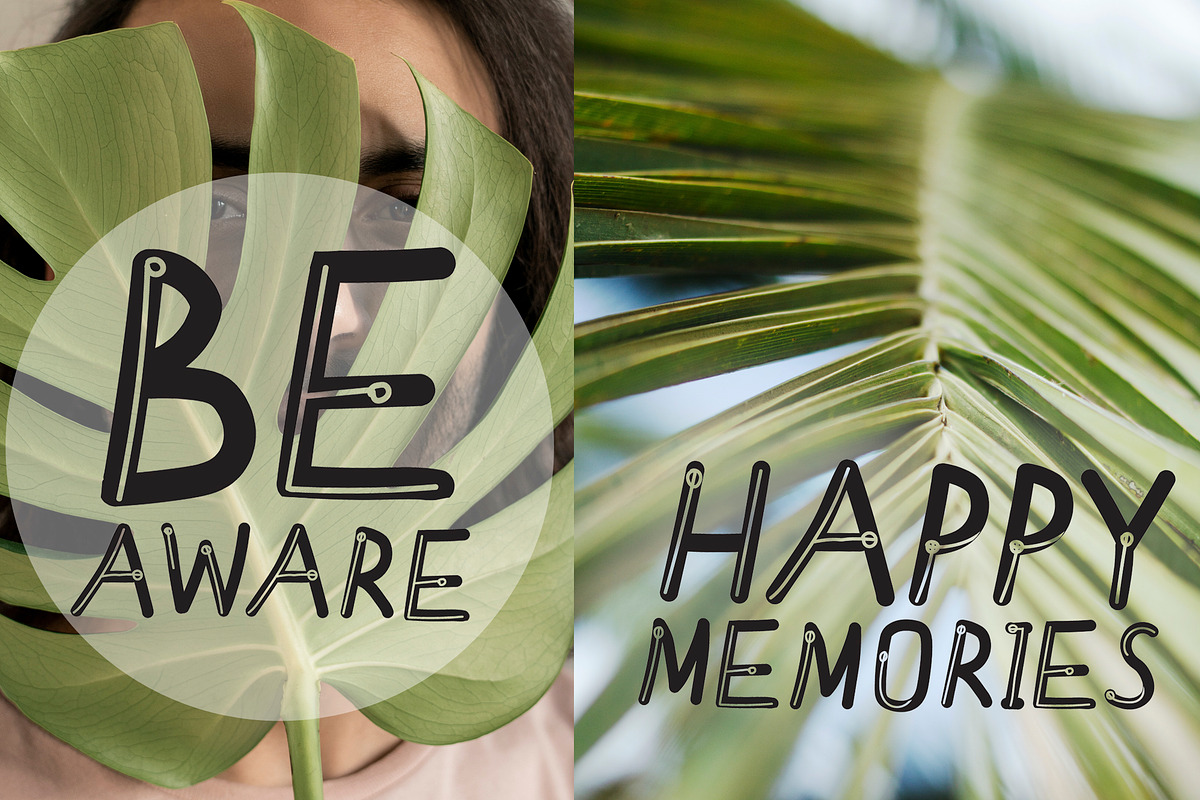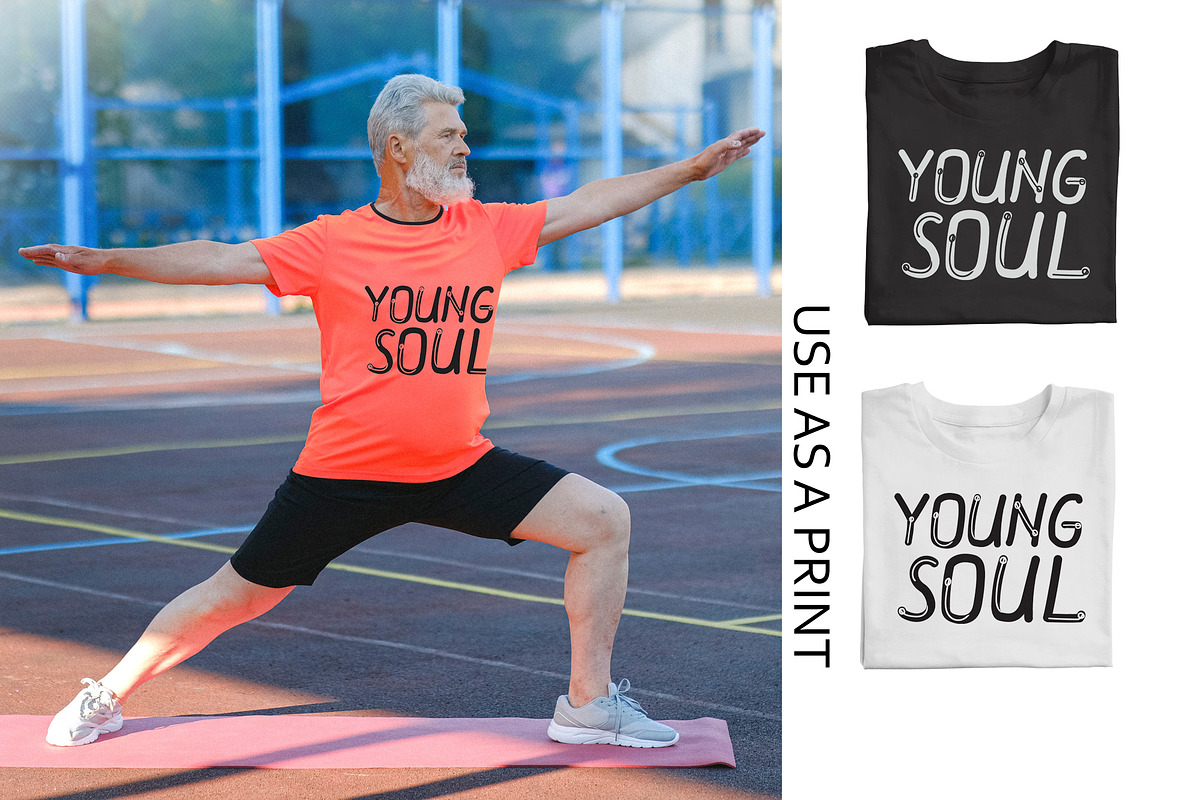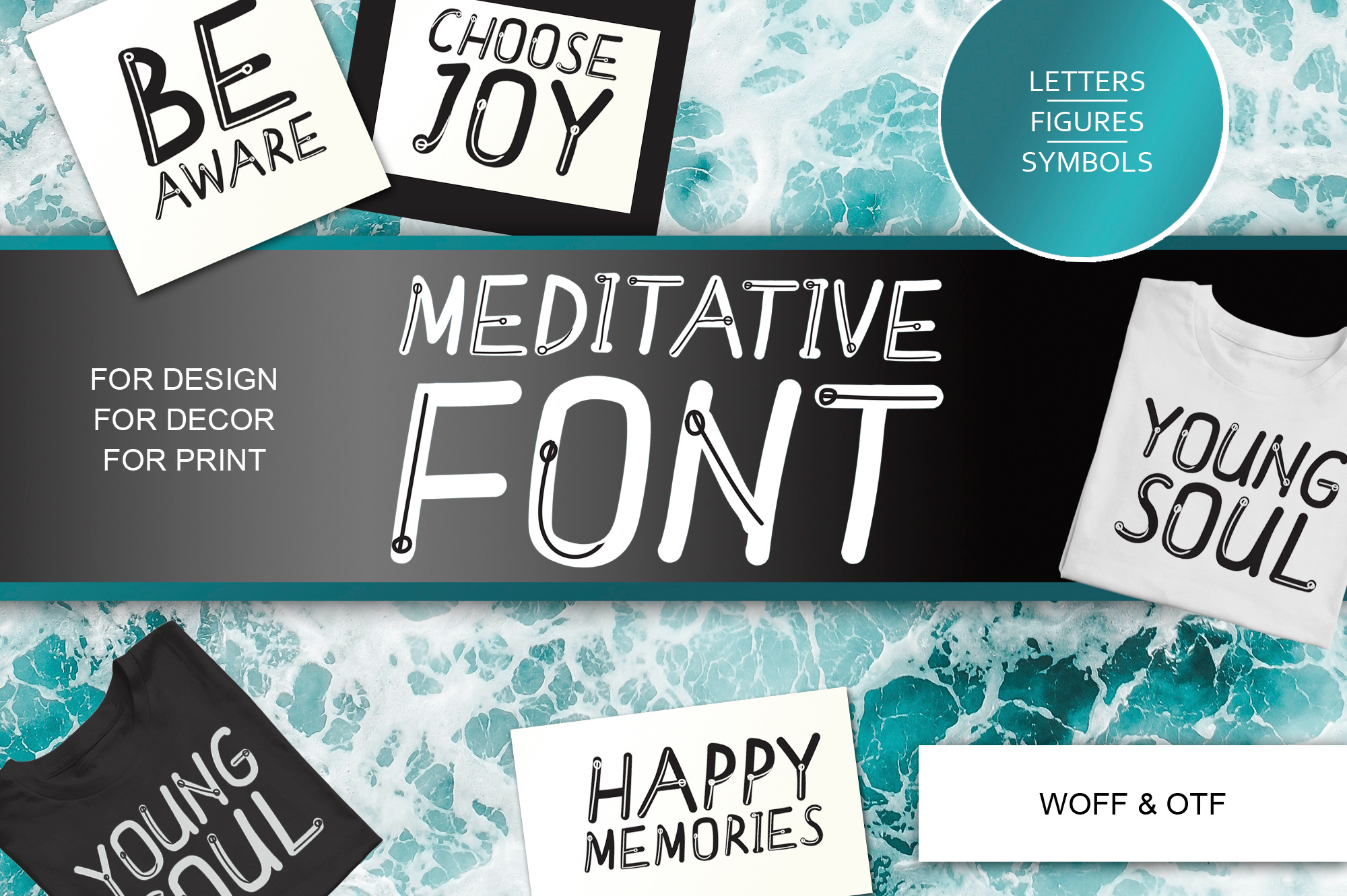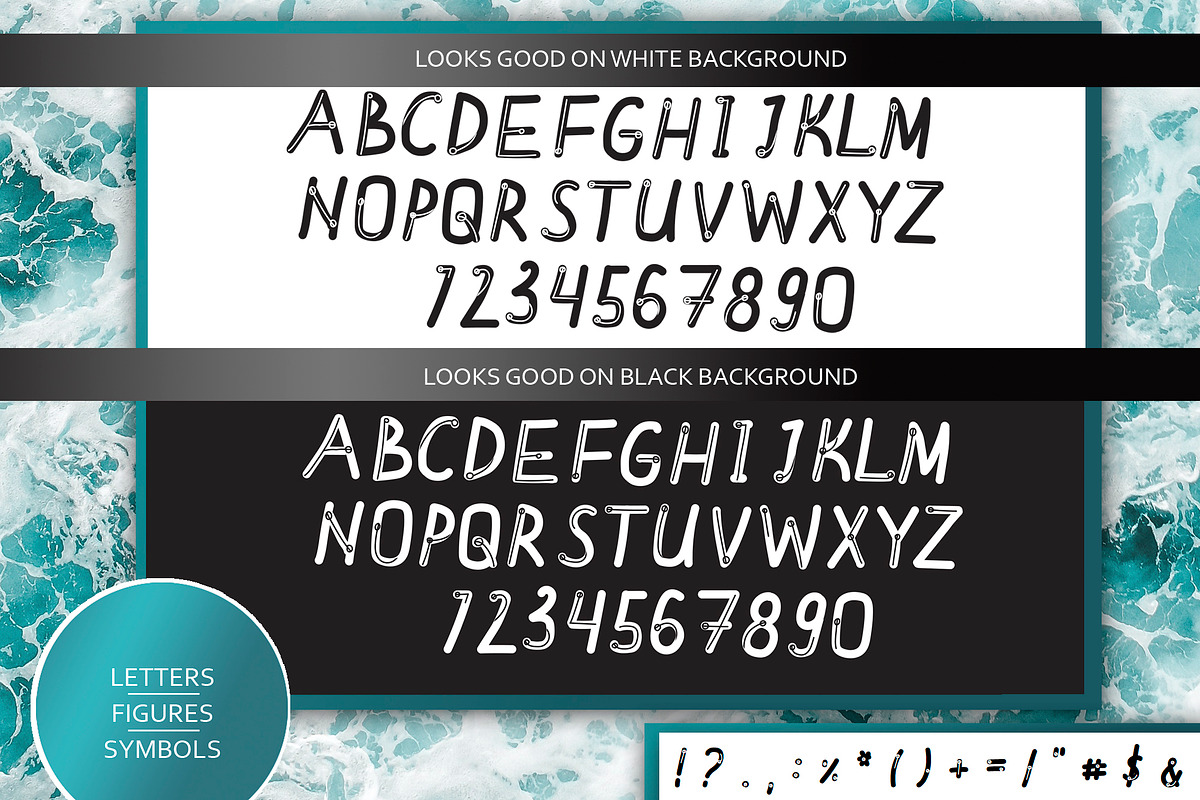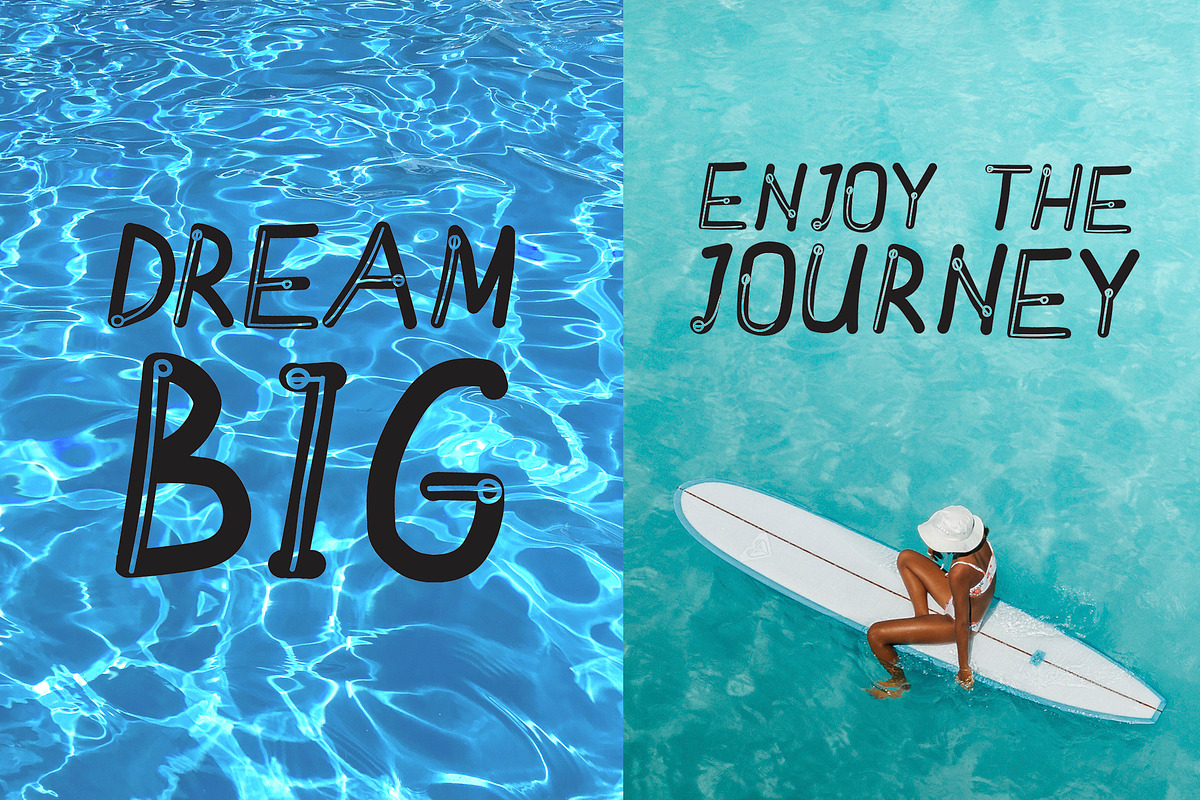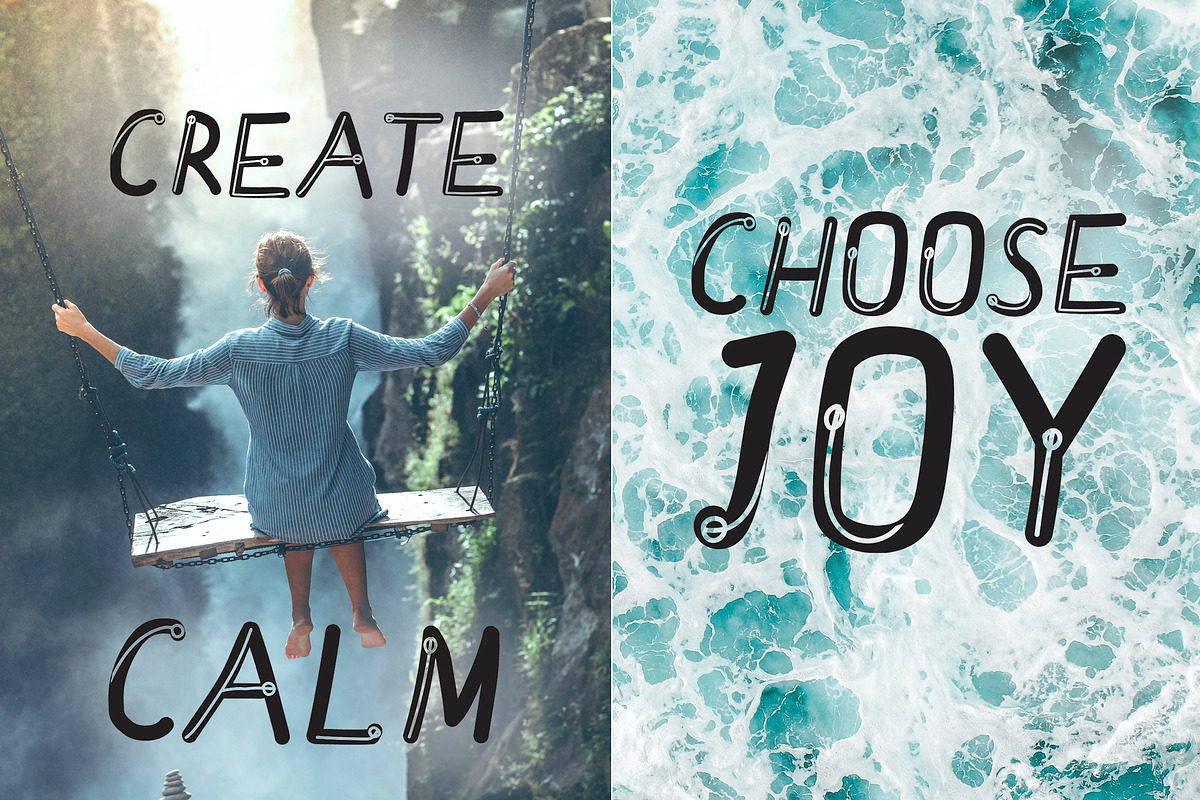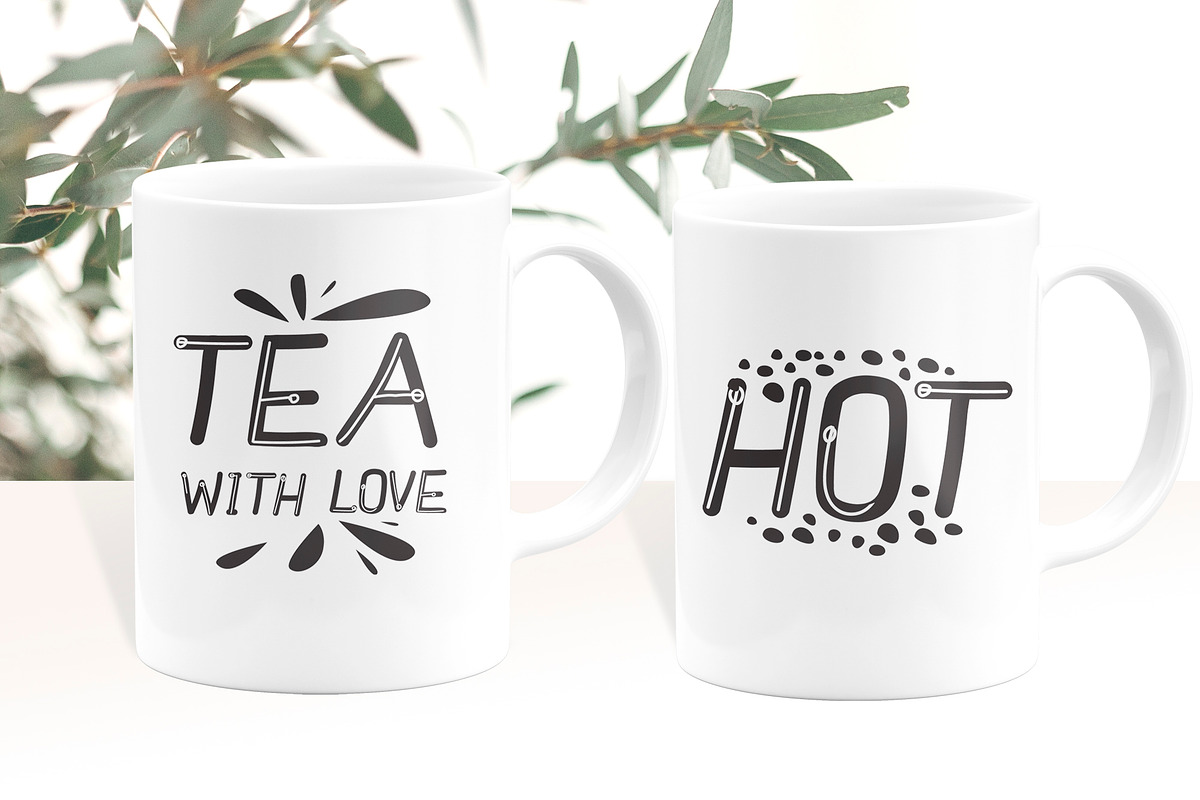
Introducing the new Meditative Font. This font was handcrafted using a graphic tablet and are available for you.
The meditative font is designed for active people who practice yoga or meditation practice. I enjoy it myself, so it is important for me to create this product.
- Letters of the English alphabet from A to Z;
- Numbers from 1 to 0;
- Special symbols such as period, comma, question mark.
You will be able to recolor the font, change the background and find new options, because the Meditative font looks good on both white and black backgrounds. In addition, I have attached the installation instructions in a text file for your convenience.